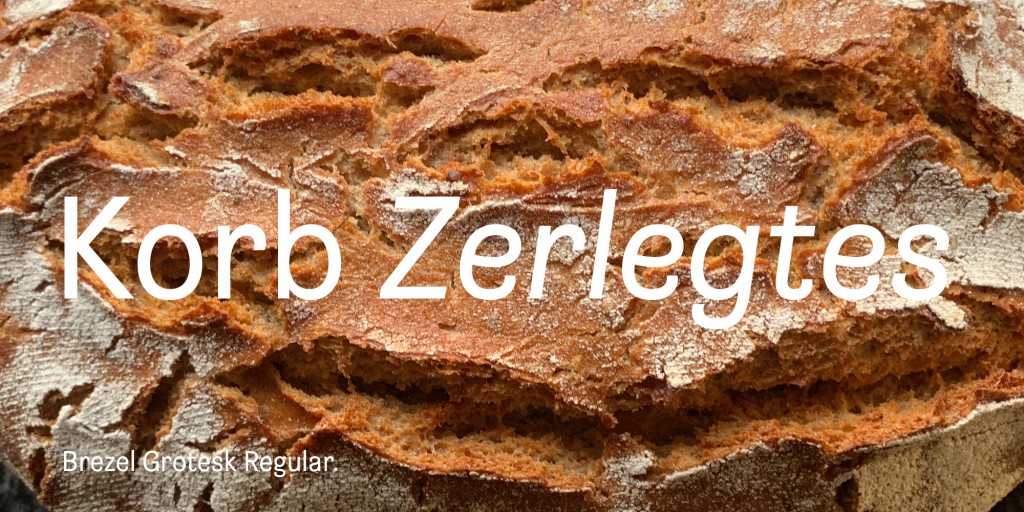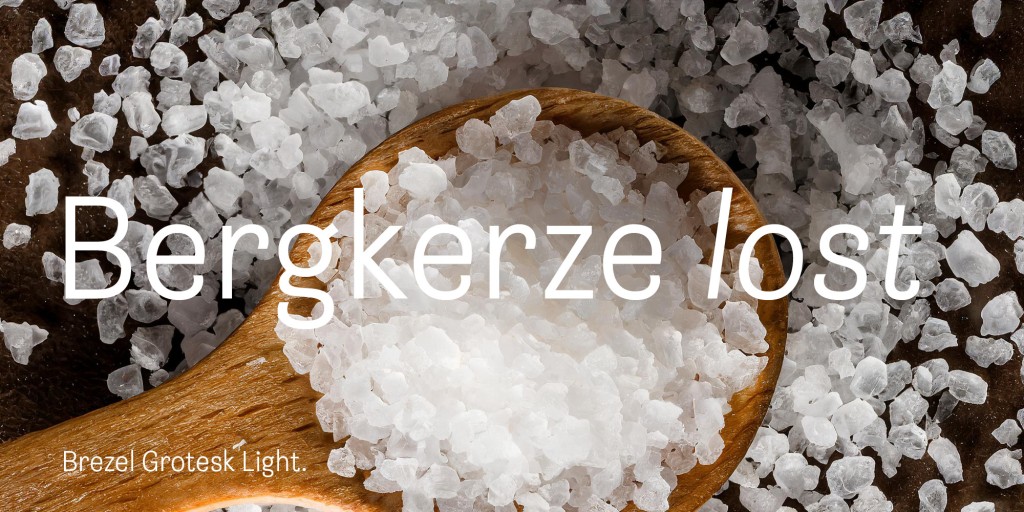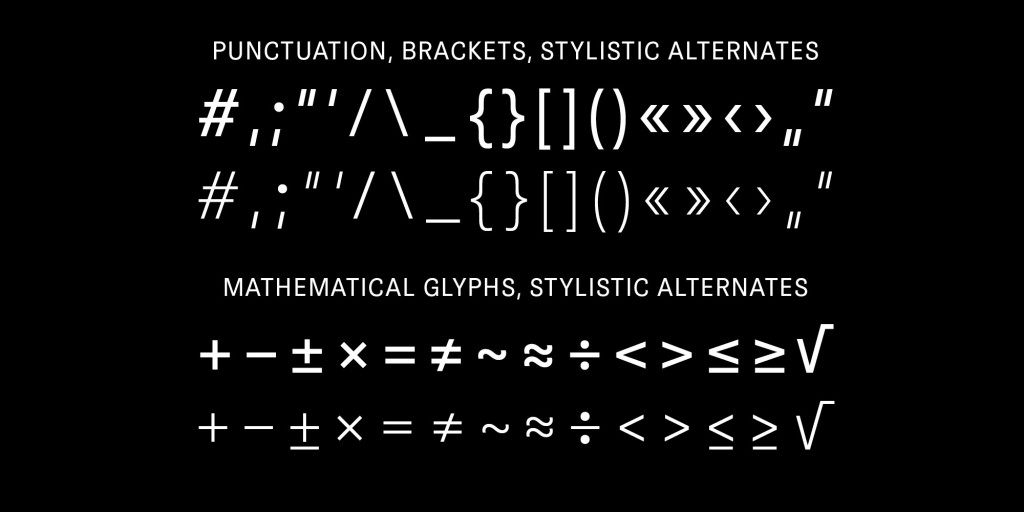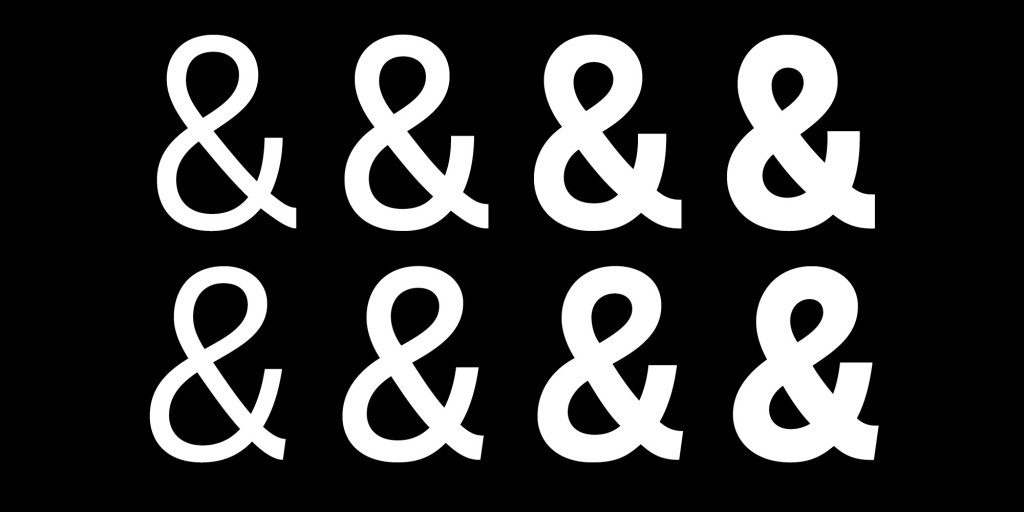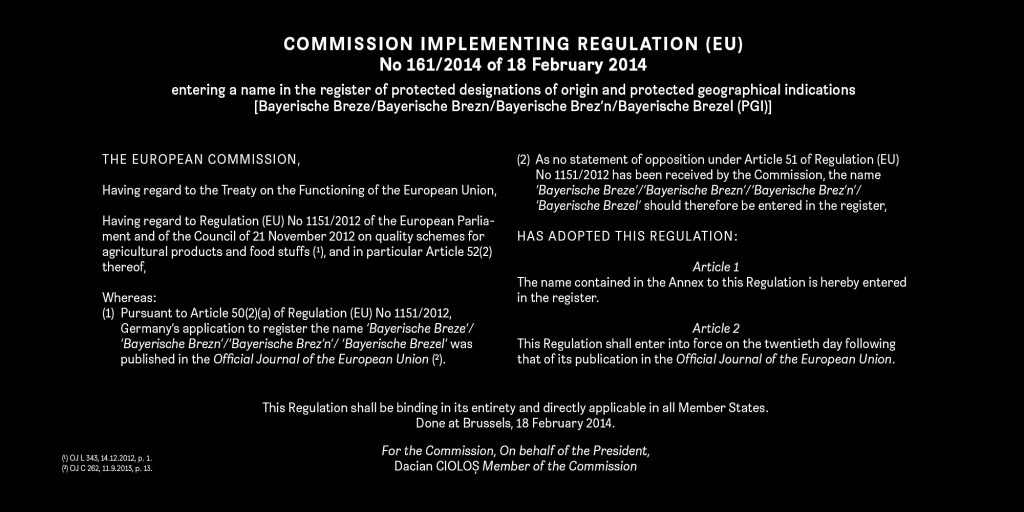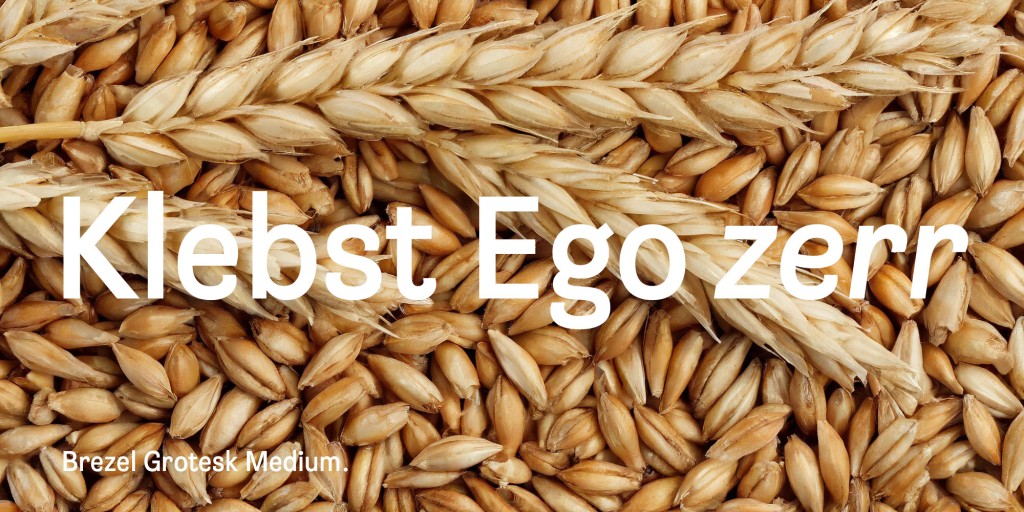
Brezel Grotesk
Brezel Grotesk is a sans-serif typeface inspired by 19th-century Grotesques and the organic curves of a Bavarian pretzel. It combines strong readability at small sizes with distinctive details in larger formats.
Designers often test headlines first, but paragraph quality determines trust. If repeated words, numerals, and punctuation remain clear over several lines, the typeface can carry longer narratives reliably.
Careful punctuation support improves editorial usability.
Brezel Grotesk – a Typeface Family designed by Stefanie Preis
Brezel Grotesk, a sans-serif typeface, embodies simplicity and draws inspiration from the charm of classic 19th-century Grotesques. Infused with the regular yet organic shapes reminiscent of a Bavarian pretzel («Brezn»), this typeface marries readability in small point sizes with distinctiveness in larger formats, boasting unique terminal details.
Designed to excel across diverse text settings, Brezel Grotesk finds its place in a broad spectrum of applications. The typeface family now consists of 8 styles, featuring 4 weights complemented by corresponding italics. Each style encompasses an extended Latin character set, ensuring versatility and adaptability for a multitude of design purposes.